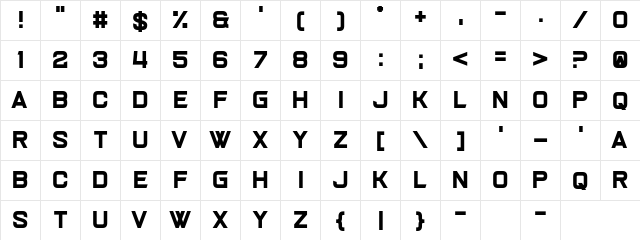
Joy Multiplication Regular
| Designer | Allison James |
Design Context for Joy Multiplication Typeface
Joy Multiplication is a composed and adaptable typeface that performs quietly and consistently across a wide range of design contexts.